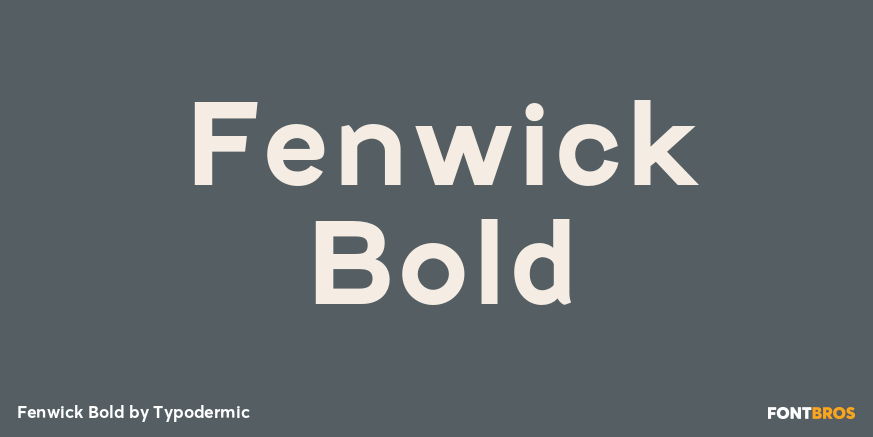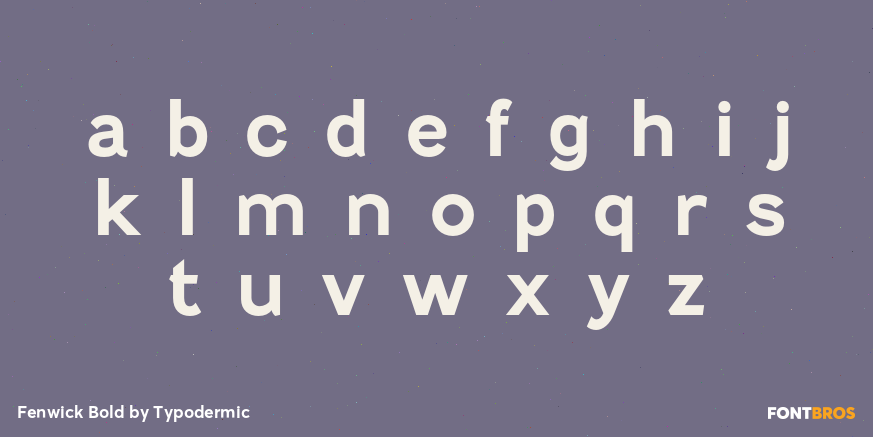
That makes Fenwick especially useful for restored hotels and adaptive-reuse properties. Railway hotels, converted factories, former post offices, historic civic buildings, and renovated seaside properties can use it for room-category names, amenity headings, menus, event programs, hotel publications, wayfinding, and digital campaigns. Outline or Olden can step forward for the lobby bar, supper club, ballroom, rooftop restaurant, seasonal event, or merchandise collection.
Heritage railways and transportation experiences present a similar hierarchy. Museum railways, restored stations, excursion trains, transportation museums, historic ferry operations, and anniversary programs need typography for route names, carriage identifiers, ticket jackets, timetable headings, dining-car menus, exhibition panels, platform graphics, souvenir packaging, and merchandise. Fenwick can supply the informational layer while its display styles give an excursion name, dining service, or commemorative event more ceremony.
Long-established golf, tennis, rowing, sailing, curling, and athletic clubs can use the same structure. Fenwick’s quieter styles suit scorecards, menus, member publications, tournament information, and clubhouse communication; Outline and Olden can appear on centenary tournaments, championship graphics, club-shop merchandise, caps, towels, and commemorative packaging.
Historic cinemas, theatres, concert halls, and cultural venues can apply Fenwick to schedules, membership information, visitor materials, auditorium names, festivals, retrospectives, bars, and anniversary programs. Premium chocolatiers, biscuit assortments, tea and coffee houses, department-store food halls, and restored market halls can use it for gift collections, assortment names, café sub-brands, counter signs, tins, cartons, and seasonal displays.
Fenwick draws on early twentieth-century commercial lettering, but its strength is not simply period atmosphere. It gives heritage identities enough range to move between ordinary communication and decorative occasion without leaving the family.